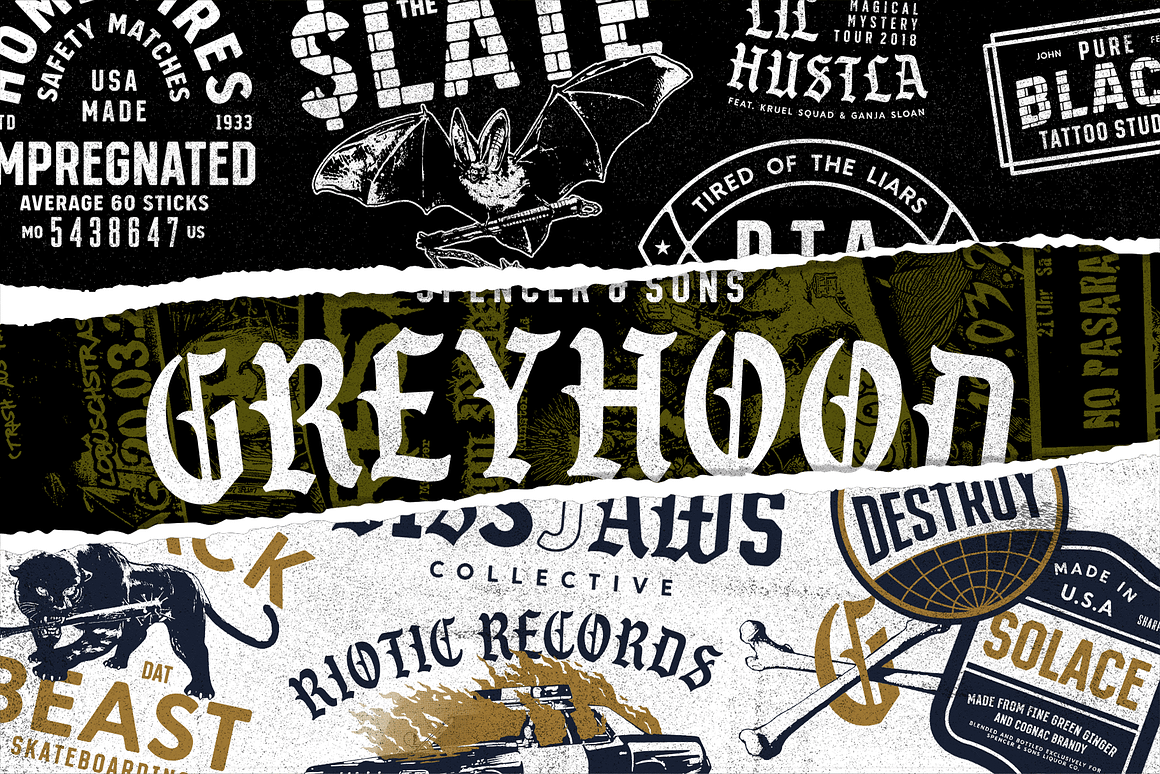
S&S GreyHood Font Bundles
The S&S GreyHood Font Bundles excels in various design applications including urban streetwear branding, edgy music album covers, gaming interface designs, action movie posters, skateboard graphics, street art installations, underground event promotions, youth-oriented marketing campaigns, and contemporary fashion labels. This dynamic typeface collection brings bold urban energy to both digital platforms and high-impact print materials.
What makes S&S GreyHood Font Bundles exciting is its raw street-inspired aesthetic that captures the authentic spirit of urban culture and underground movements. The font collection features bold letterforms with grunge textures and distressed elements that evoke the rebellious energy of street art while maintaining strong readability. Its edgy design philosophy combines urban authenticity with modern functionality, creating powerful visual statements that resonate with contemporary audiences.
The S&S GreyHood Font Bundles family includes multiple variations and styles: Regular, Bold, Distressed, Stencil, Shadow, Outline, and Graffiti-inspired versions. Each bundle maintains the signature urban character while offering designers extensive flexibility for street-style brand systems and alternative culture layouts. The comprehensive character set supports multiple languages and includes urban symbols, decorative elements, and contemporary punctuation marks perfect for counter-culture branding.
The technical excellence of S&S GreyHood Font Bundles includes carefully crafted distressed effects, optimized vector paths, and reliable cross-platform performance. Whether you're designing bold logos or complex urban layouts, these fonts deliver consistent impact. The balanced proportions work exceptionally well in large-scale applications while maintaining readability in smaller text blocks, perfect for diverse street-style applications.
Creative studios appreciate how S&S GreyHood Font Bundles elevates brand communication through its authentic urban aesthetic. The font collection's street credibility makes it ideal for hip-hop artists, skateboard companies, underground venues, and alternative lifestyle brands seeking to convey authenticity and rebellion. Its edgy character complements various design styles while establishing powerful brand personalities in youth culture markets.
From small product labels to massive urban murals, S&S GreyHood Font Bundles maintains its bold presence across all scales. The font collection's robust construction ensures visual impact in competitive street culture environments while its diverse variations provide comprehensive design solutions, making it an essential toolkit for designers creating memorable urban brand experiences.